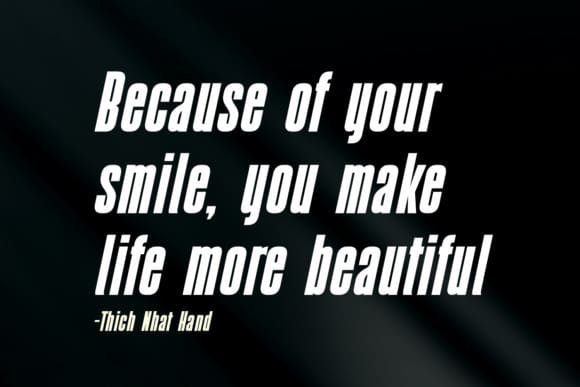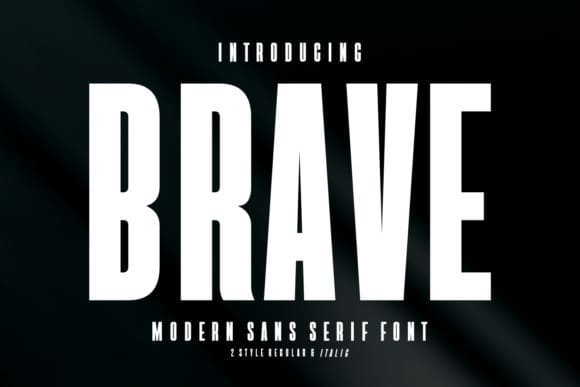
Brave Font
Brave Font, an extraordinary sans-serif spectacle that radiates flexibility with each and every brushstroke. Showcasing both Regular and Italic styles, Brave amplifies the diverse artistic flairs of designers worldwide. This international design gem lends itself beautifully to multilingual communication courtesy of its extensive selection of Eastern European glyphs, extending its global resonance. Whether it’s crafting striking headlines, designing captivating posters or adding a unique touch to magazines, Brave Font brings unrivalled charisma to each project, elevating it into a realm of unequalled visual allure. Engage in a richer artistic exploration with this masterful display of typographic craftsmanship known as Brave.